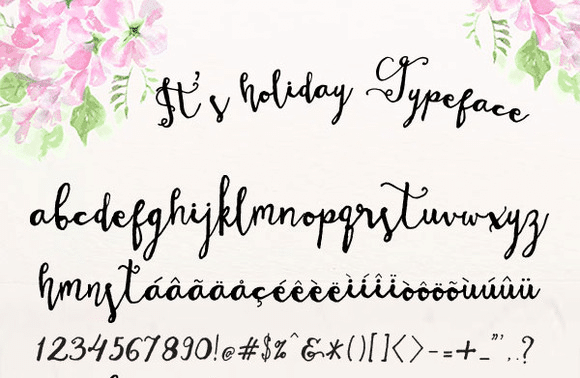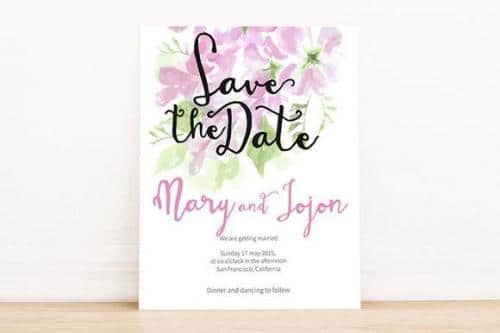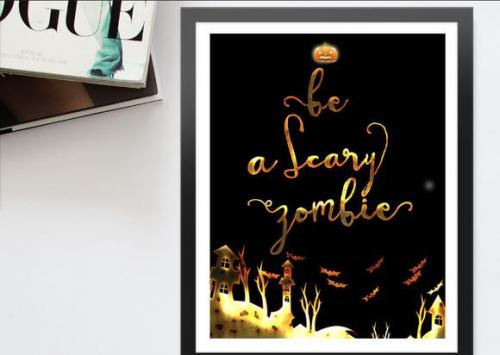
It’s Holiday Font is Fun and Fancy Calligraphy Font with fancy imagination and creativity. Its natural handwritten style with unique look. Very suitable for art quote, fancy title, invitation, cards design, blog title design, handwritten signature or handdrawn style logo.
- Designer: mycandythemes